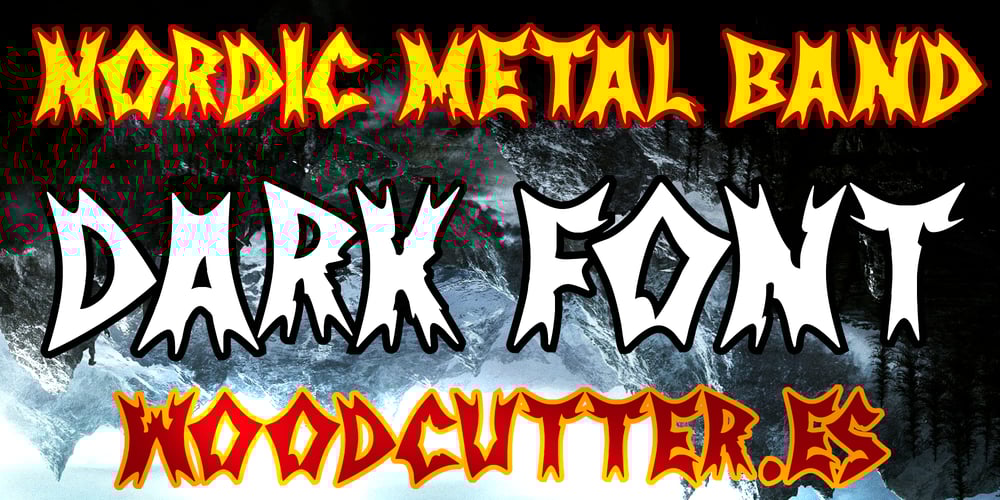
Nordic Metal Band Font Family was designed by Jordi Manero and published by Woodcutter. Nordic Metal Band contains 1 styles and family package options. “Nordic Metal Band” is a typeface with distorted, sharp, and aggressive letters that emulate the style of 1980s heavy metal album covers. This powerful and bold font captures the essence of Nordic metal, with its sharp lines and dark, impactful aesthetic. Ideal for music-related designs, concert posters, album covers, and any project looking to convey a sense of strength and rebellion. “Nordic Metal Band” infuses energy and attitude, making it perfect for standing out and leaving a lasting impression.